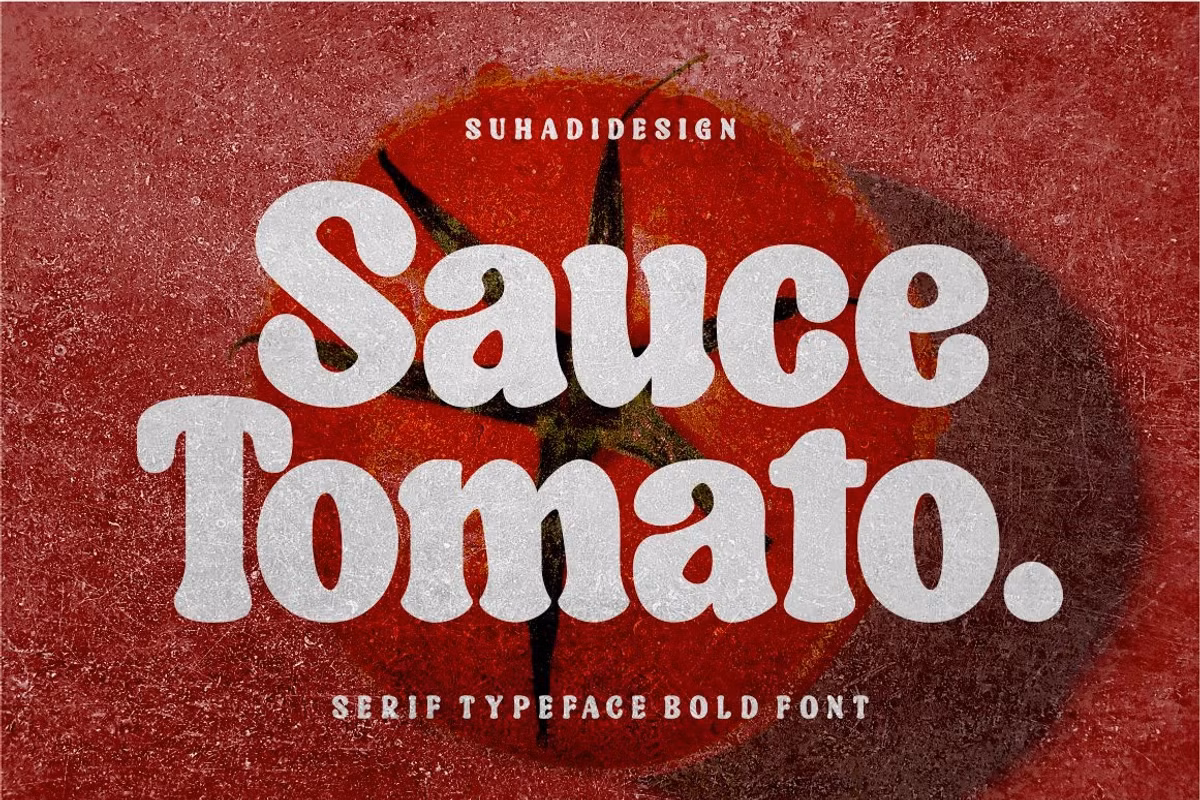
Sauce Tomato Retro Serif Bold Font Free Download
Sauce Tomato – Retro Serif Bold Font Free Download is a flavorful, vintage-inspired typeface packed with personality and punch. Please note, you are required to purchase this font for commercial use. It is available for free download for testing and personal projects only.
With its thick serifs, curved edges, and nostalgic vibe, Sauce Tomato is perfect for retro branding, food packaging, diner menus, posters, t-shirts, and playful social media graphics. It delivers a bold visual impact while keeping things fun, funky, and full of character.